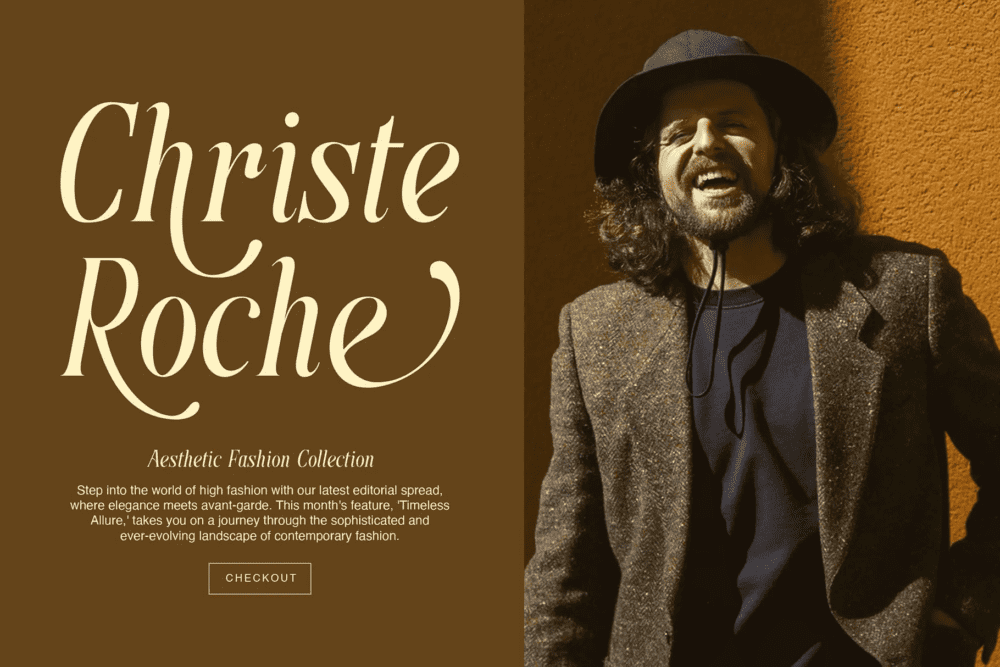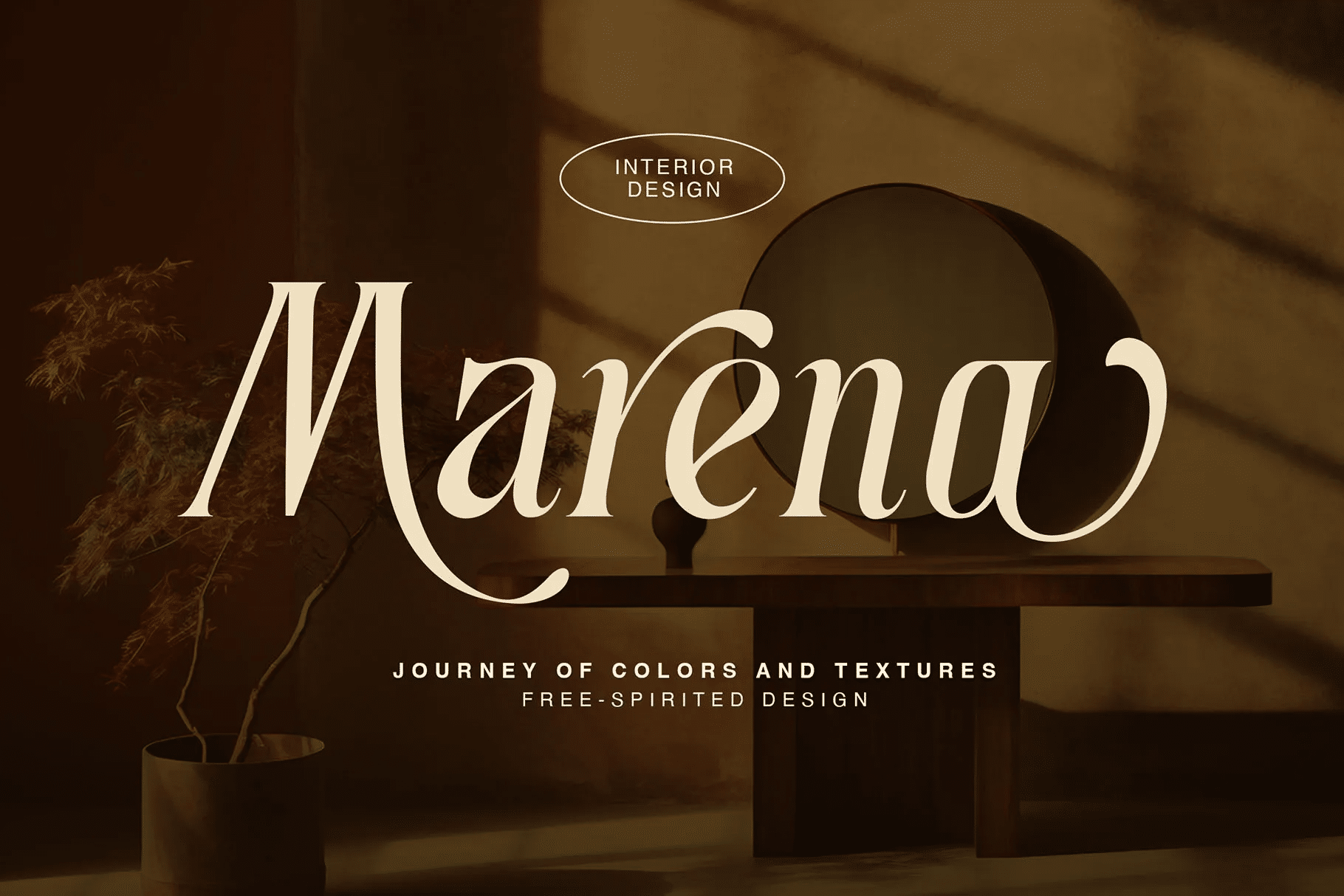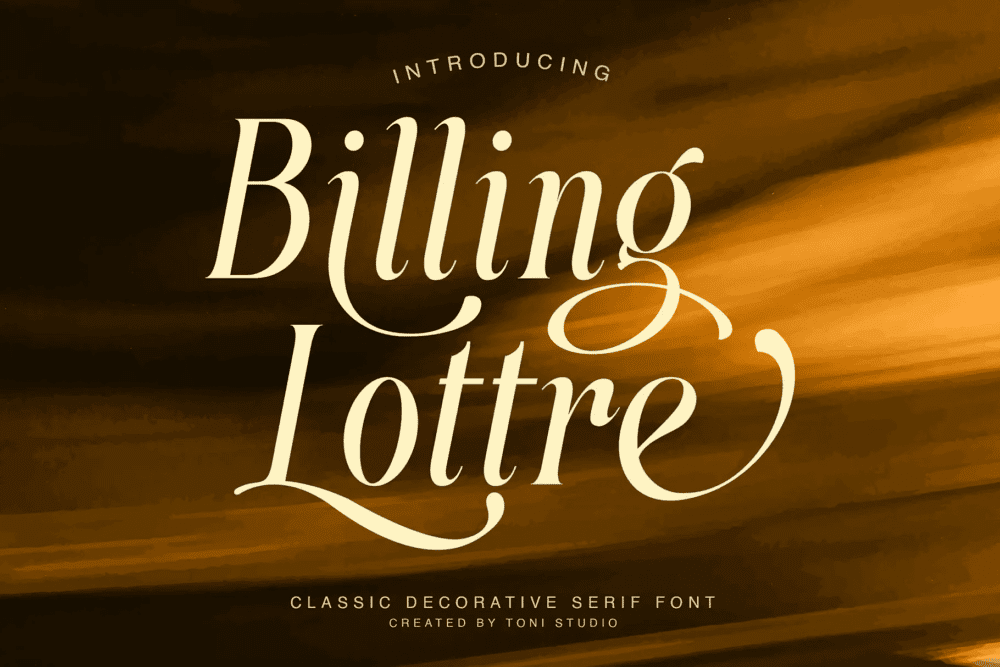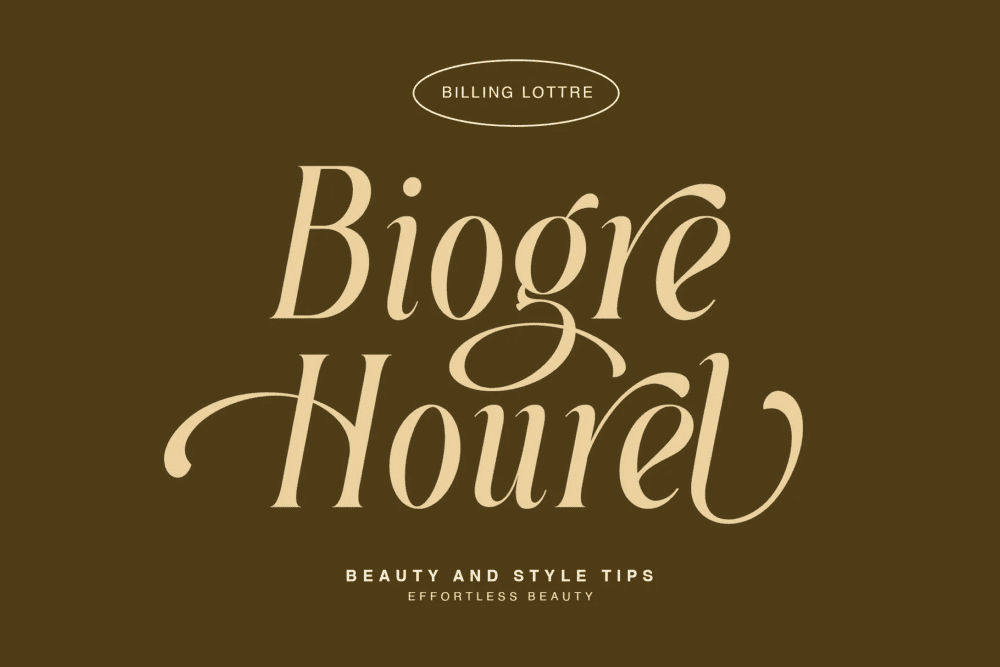
Billing Lottre Font
Billing Lottre classic serif font!!! Billing Lottery offers beautiful typographic harmony for a variety of design projects. This font is perfect for elegant & luxury logos, classy editorial designs, women’s magazines, fashion brands, cosmetic brands, fashion promotions, modern advertising designs, invitation cards, art quotes, home decor, book titles/covers, special events, tote bags, Advertisements and more.